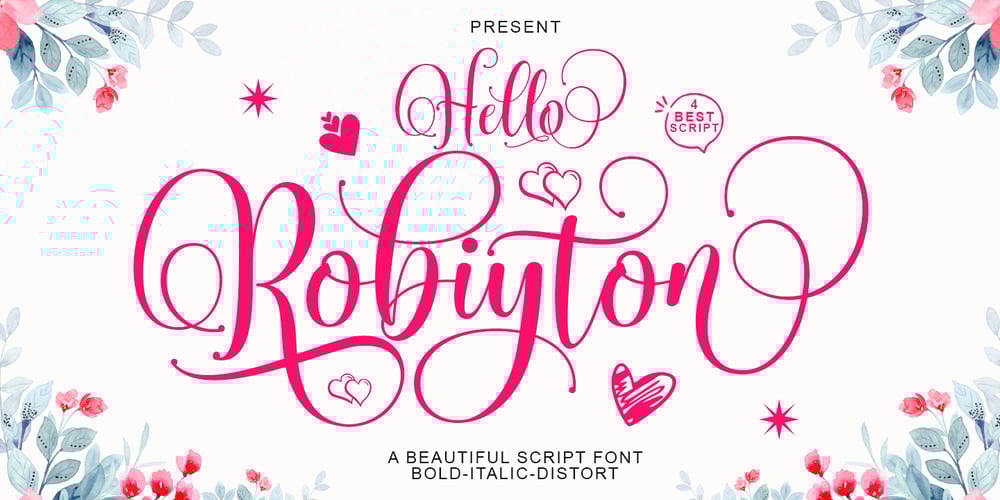
Hello Robiyton
Hello Robiyton Font Family was designed by Ikhsan Maulana and published by IM Studio. Hello Robiyton contains 4 styles and family package options. Hello Robiyton Script is a modern calligraphy font with today’s handwriting style, this font is perfect for branding, wedding invitations, magazines, mugs, business cards, quotes, posters, and more, you can try first if you want to buy this font.Hello Robiyton Script comes with 371 glyphs. and by having many of these glyphs, you will be able to choose letters according to your liking, lots of variations and options for each letter, so you can adjust to your design choices.To use various kinds of glyphs, a program that supports OpenType features is required such as Adobe Photoshop Cs/Adobe Photoshop CC, Adobe Illustrator CS/Adobe Illustrator CC, Adobe Indesign and Corel Draw and many more programs that support OpenType.If you don’t have a program that supports OpenType, you can access all the alternative glyphs using Font Book (Mac) or Character Map (Windows).Thanks and happy designing :-)Thank you for buying!